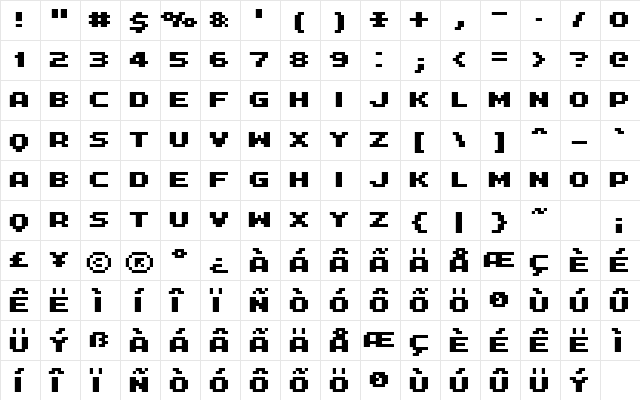
FFF Interface02b Regular
Design Context for FFF Interface02b Typeface
FFF Interface02b takes a measured approach to typography — its balanced proportions and neutral character make it a reliable workhorse for both digital and print work.